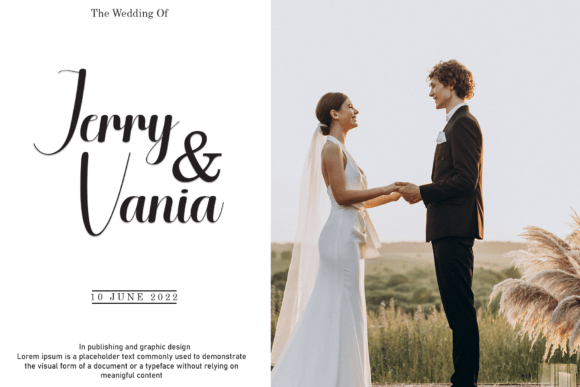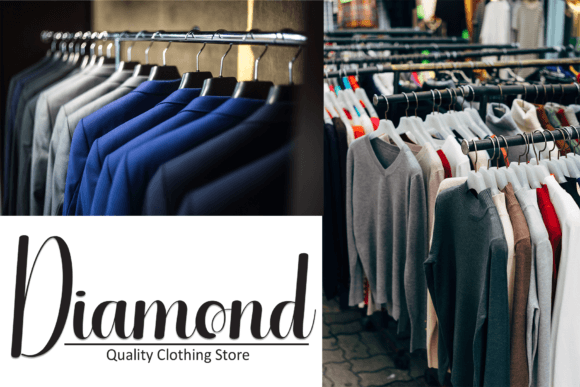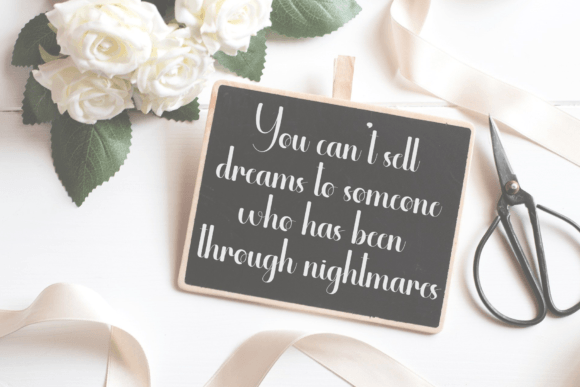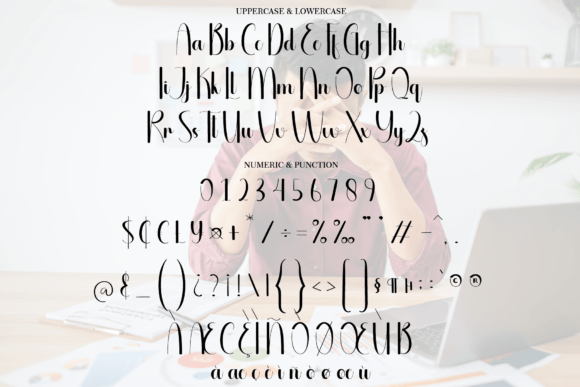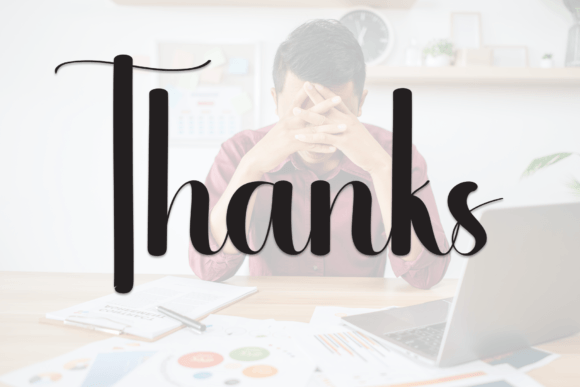
Introducing Busy Font: The Sweet and Friendly Handwritten Font for Your Design Needs
Are you tired of using the same old fonts for your designs? Do you want to add a personal touch to your wedding invitations, cards, or other creative projects? Look no further than Busy Font, a sweet and friendly handwritten font that’s perfect for adding a lovely touch to your designs.
What is Busy Font?
Busy Font is a fresh and casual handwritten font that’s designed to bring a sense of warmth and personality to your designs. With its smooth and flowing lines, Busy Font is ideal for creating beautiful wedding invitations, cards, and other paper crafts. Whether you’re a designer, crafter, or DIY enthusiast, Busy Font is the perfect choice for anyone looking to add a touch of elegance and sophistication to their work.
Characteristics of Busy Font
So, what makes Busy Font so special? Here are just a few of its key characteristics:
- Handwritten style: Busy Font has a beautiful, handwritten style that’s perfect for creating personal and unique designs.
- Fresh and casual: Unlike some fonts that can be stiff or formal, Busy Font has a fresh and casual feel that’s perfect for creating designs that are relaxed and approachable.
- Sweet and friendly: Busy Font has a sweet and friendly tone that’s perfect for creating designs that are warm and inviting.
- Versatile: Busy Font is versatile and can be used for a wide range of design projects, from wedding invitations and cards to scrapbooking and other paper crafts.
Uses for Busy Font
Busy Font is perfect for a wide range of design projects, including:
- Wedding invitations: Busy Font is ideal for creating beautiful and elegant wedding invitations that set the tone for a special day.
- Cards: Whether you’re creating birthday cards, thank you cards, or other types of cards, Busy Font is the perfect choice.
- Scrapbooking: Busy Font is a great choice for scrapbooking and other paper crafts, adding a personal touch to your designs.
- DIY projects: Busy Font is perfect for DIY enthusiasts who want to add a personal touch to their projects, from signs and banners to journals and planners.
Why Choose Busy Font?
So, why should you choose Busy Font for your design needs? Here are just a few reasons:
- Unique and personal: Busy Font adds a unique and personal touch to your designs, setting them apart from more formal or traditional fonts.
- Easy to read: Despite its handwritten style, Busy Font is easy to read and understand, making it perfect for designs that need to communicate a message.
- Flexible: Busy Font is flexible and can be used in a wide range of design projects, from digital designs to print projects.
- High-quality: Busy Font is a high-quality font that’s designed to deliver beautiful results, every time.
If you’re looking for a sweet and friendly handwritten font that’s perfect for adding a lovely touch to your designs, Busy Font is the perfect choice. With its fresh and casual style, Busy Font is ideal for creating beautiful wedding invitations, cards, and other paper crafts. Whether you’re a designer, crafter, or DIY enthusiast, Busy Font is the perfect addition to your design toolkit.